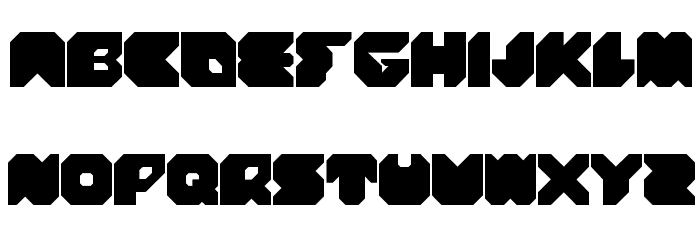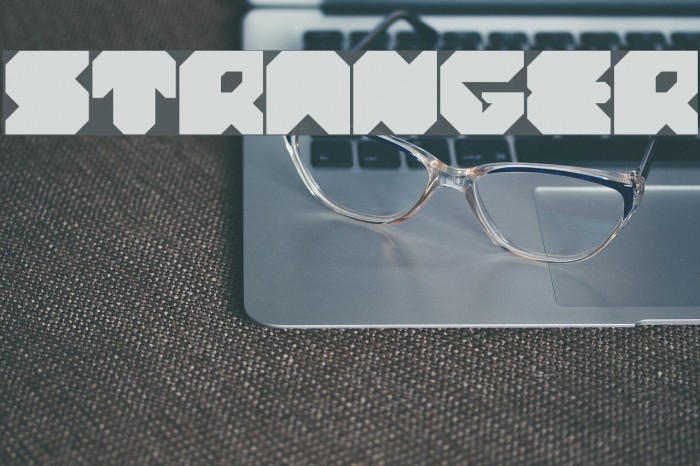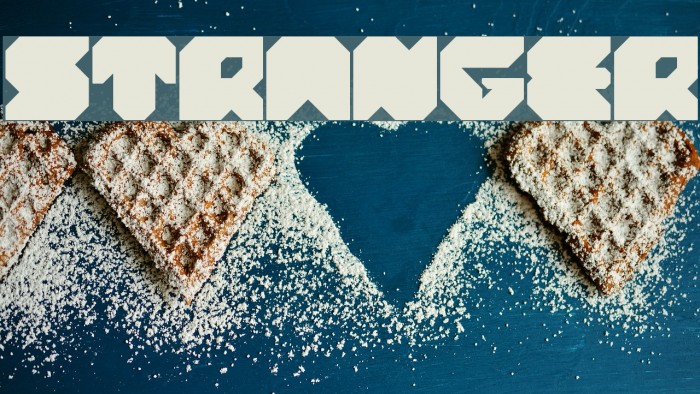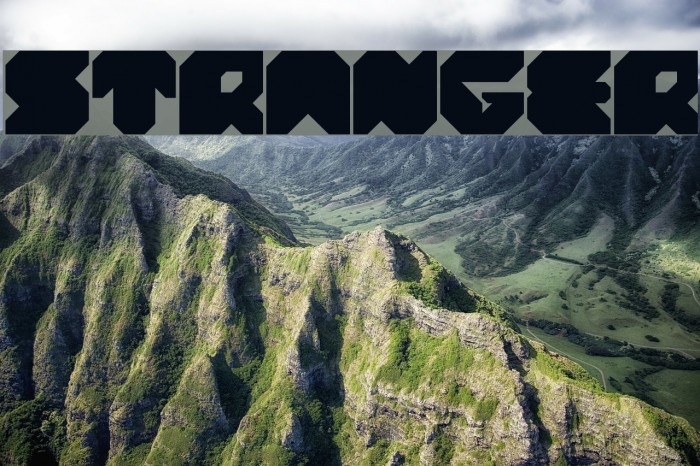
stranger Font
This font features a bold, geometric style with sharp angles and a blocky appearance. Each character is constructed with a series of straight lines and angular cuts, giving it a futuristic and industrial feel. The uppercase letters are particularly striking, with a uniform height and width that create a cohesive and impactful visual presence. The font lacks any curves, emphasizing its rigid and structured design. This makes it ideal for projects that require a strong, assertive typeface that commands attention. The characters are tightly spaced, enhancing the compact and dense look of the text.
- Proposed Projects: Ideal for sci-fi themed designs, video game titles, posters, and branding that requires a modern and assertive look.
- Character Spacing: Tight
- Overall Style: Futuristic, Industrial